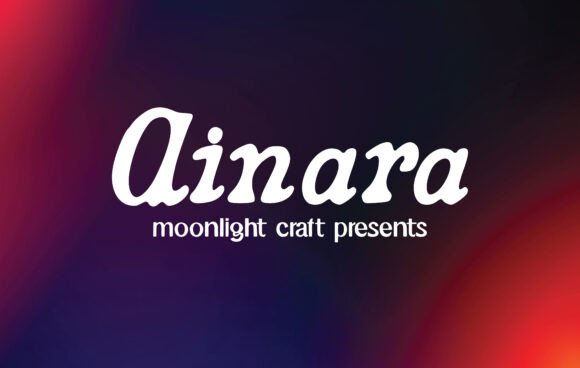
The Ainara Font: A Creative Game-Changer for Designers and Crafters
I’ll never forget the moment I stumbled upon the Ainara font while working on a branding project for a small business. I was struggling to find the perfect handwritten font that would capture the essence of their eco-friendly products, and then I saw it – Ainara. It was love at first sight! ✨ The elegant, flowing lines and beautiful letterforms instantly resonated with the brand’s values and aesthetic. In this article, I’ll share my experience with the Ainara font, its features, and how to make the most of it in various design platforms.
An Honest Review of Ainara Font
What I Love About Ainara Font
- ✨ Lovely and beautiful handwritten style that’s perfect for creative projects
- 🎨 Versatile and adaptable to various design contexts, from logos to quotes
- 💫 Unique and distinctive letterforms that add a touch of elegance to any design
While Ainara font is an excellent choice for many design projects, there are a few things to keep in mind: 🤔
- ⚠️ Some characters may not work well in all contexts, such as the uppercase letters, which can appear a bit narrow
- ⚠️ Limited availability of language support, so it’s essential to check compatibility before use
The Story Behind Ainara Font
Ainara font was designed with love and care by a talented type designer who aimed to create a beautiful, elegant handwritten font. The designer’s inspiration came from traditional calligraphy and handwriting, with a focus on creating a unique and distinctive letterform. 💫
Q: What is Ainara font best used for?
Ainara font is perfect for creative projects, branding, logos, and quotes. Its elegant and beautiful handwritten style makes it an excellent choice for designs that require a touch of sophistication.
Q: Is Ainara font suitable for body text?
While Ainara font is highly legible, it’s recommended to use it for titles, headings, and short paragraphs. For longer body text, a more traditional font might be more suitable.